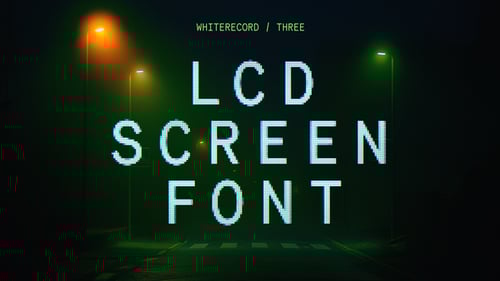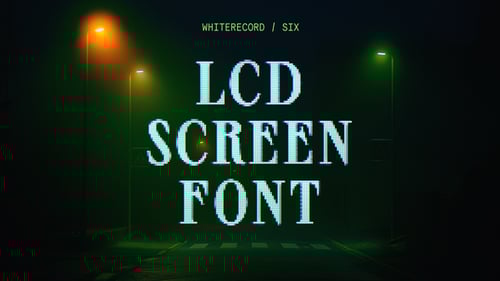
Animated Pixel Glitch Alphabet and Numbers Effect
This animated pixel glitch effect brings a dynamic, retro-futuristic aesthetic to any project. Featuring a complete set of uppercase and lowercase alphabet characters, numbers, and various symbols, each element animates with a distinctive pixelated, broken signal appearance. The effect includes vibrant color shifts and digital artifacts, mimicking the look of old CRT screens or corrupted data. Designed for versatile use, it can serve as an eye-catching text overlay for titles, intros, or digital interfaces, enhancing videos with a unique tech-inspired style. With its alpha channel, this animation integrates seamlessly into diverse visual compositions, offering a striking visual impact for gaming, technology, or modern design content.